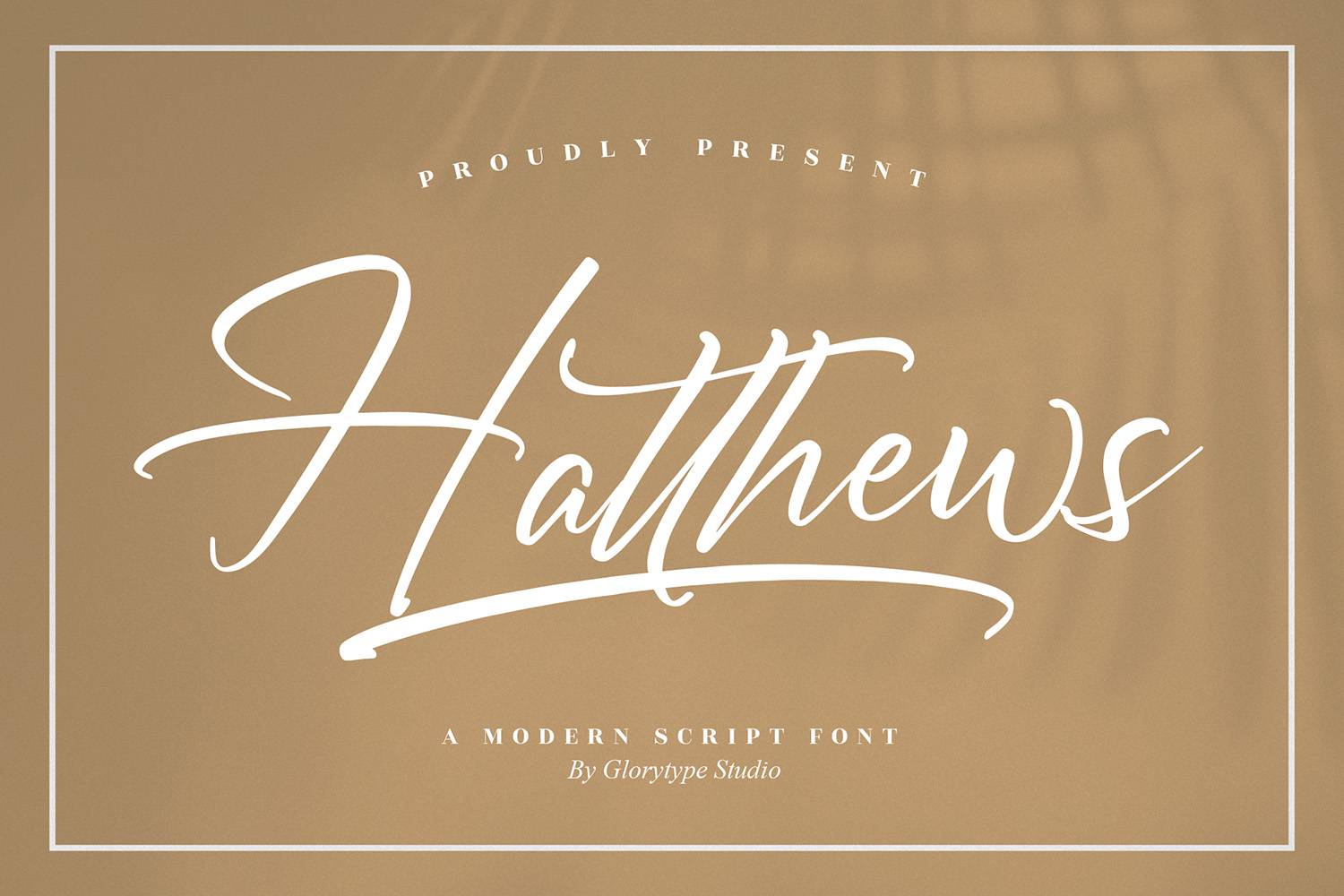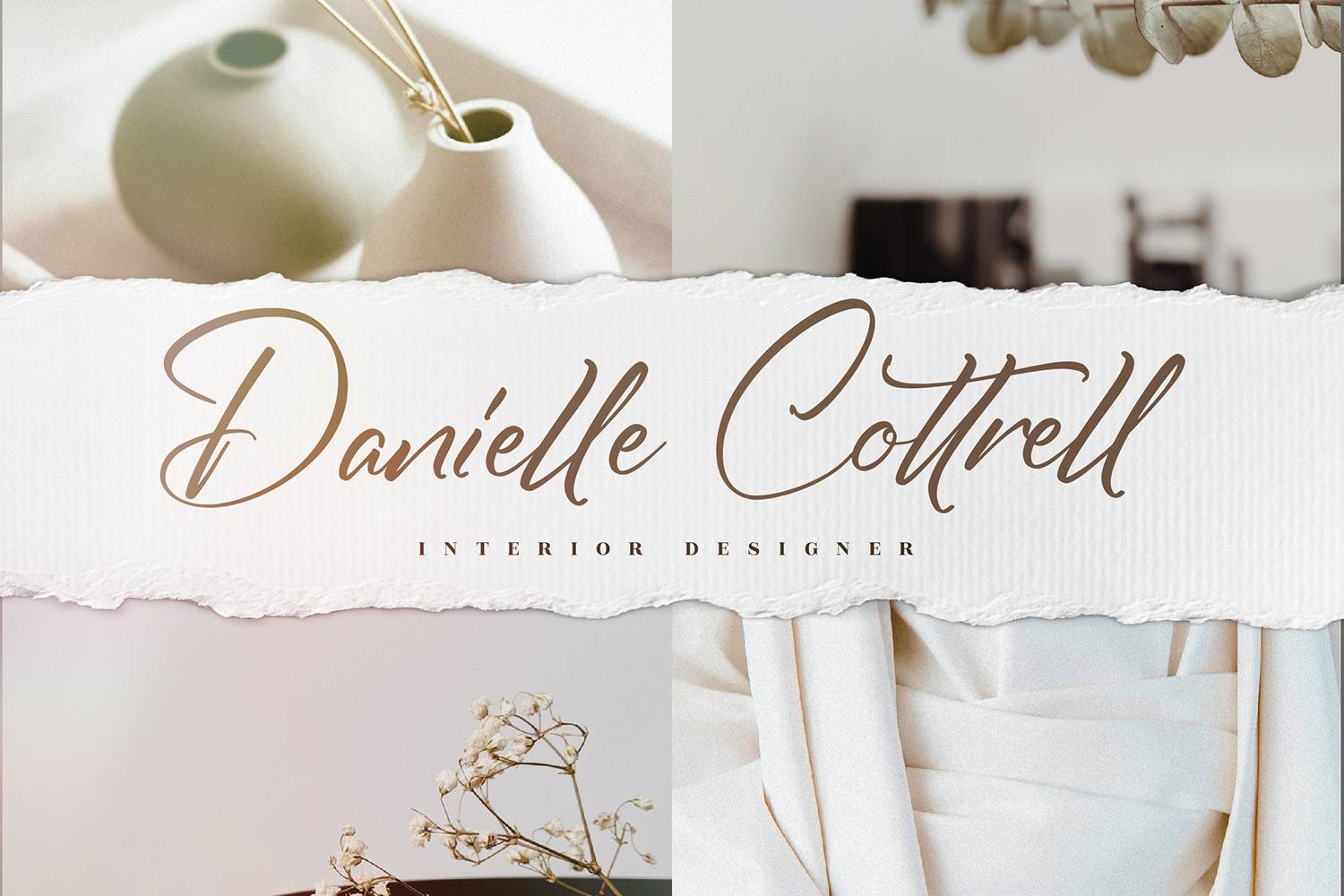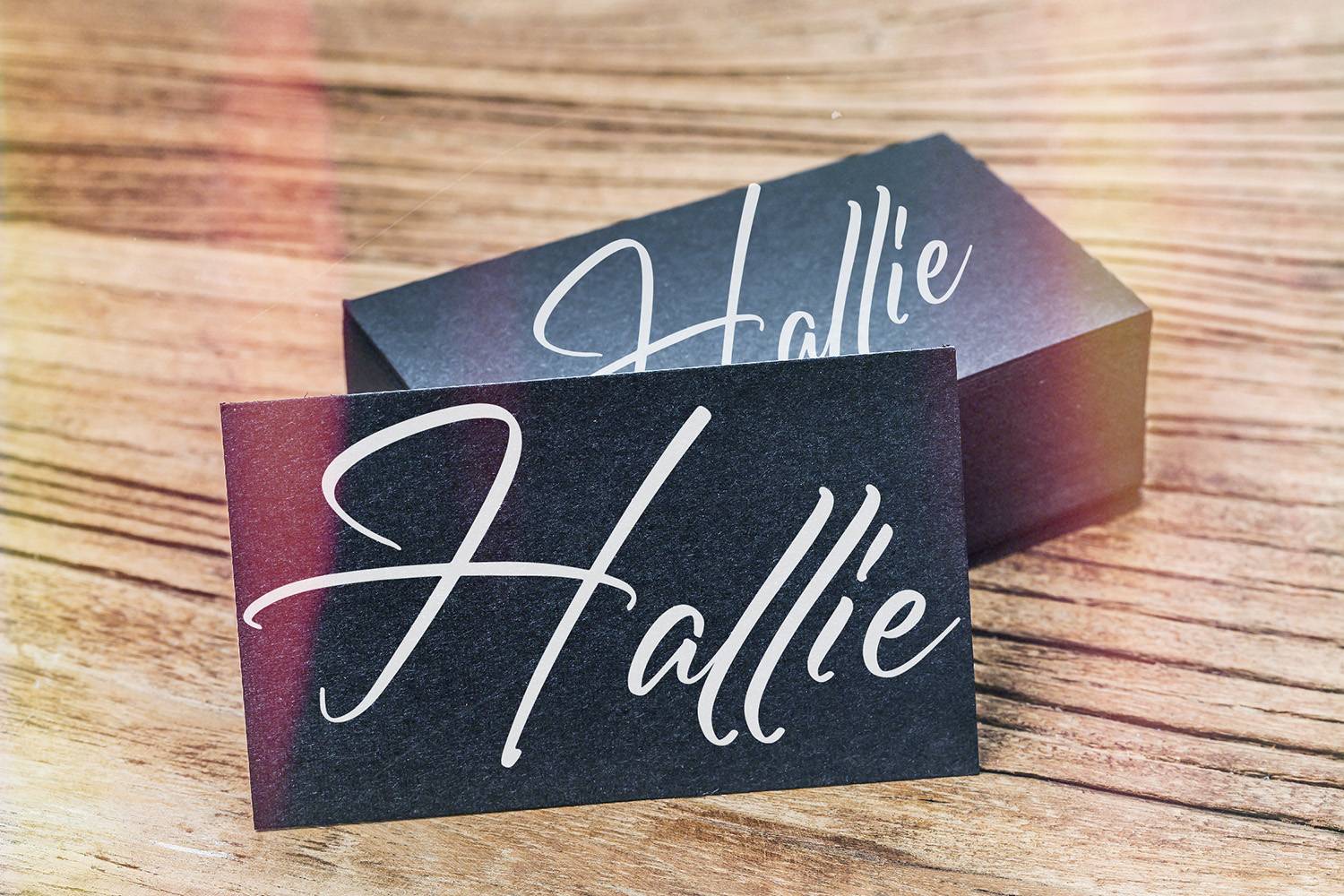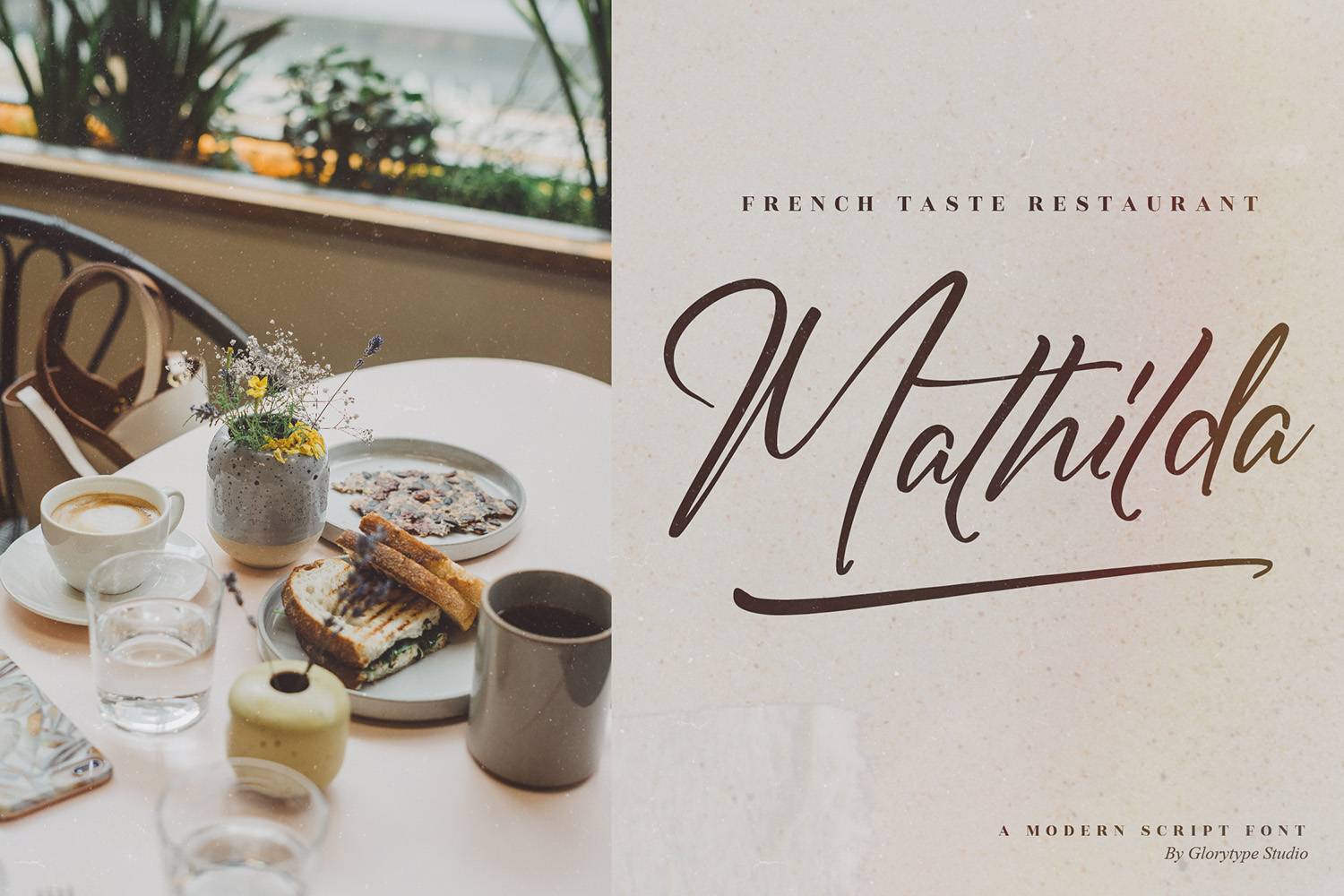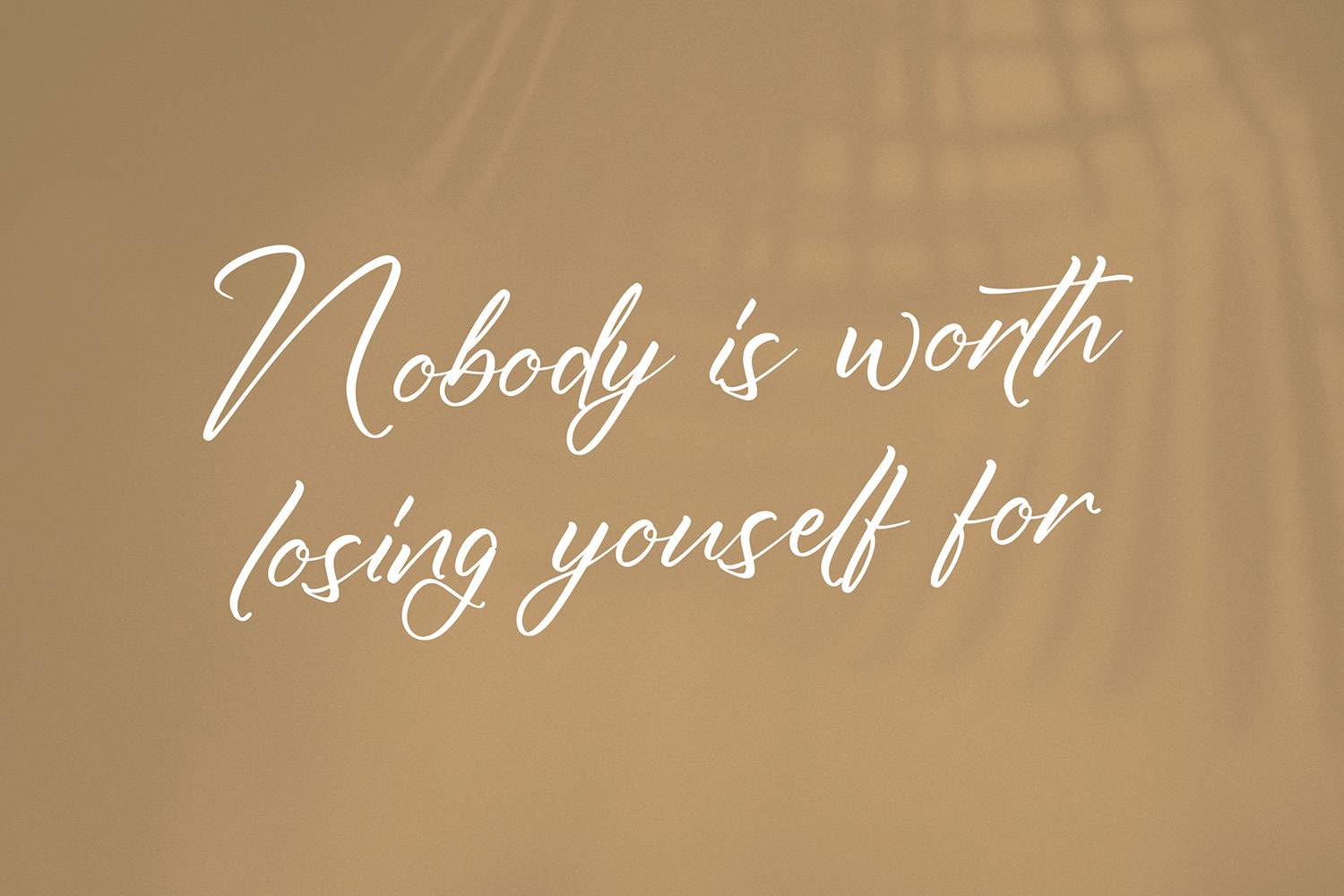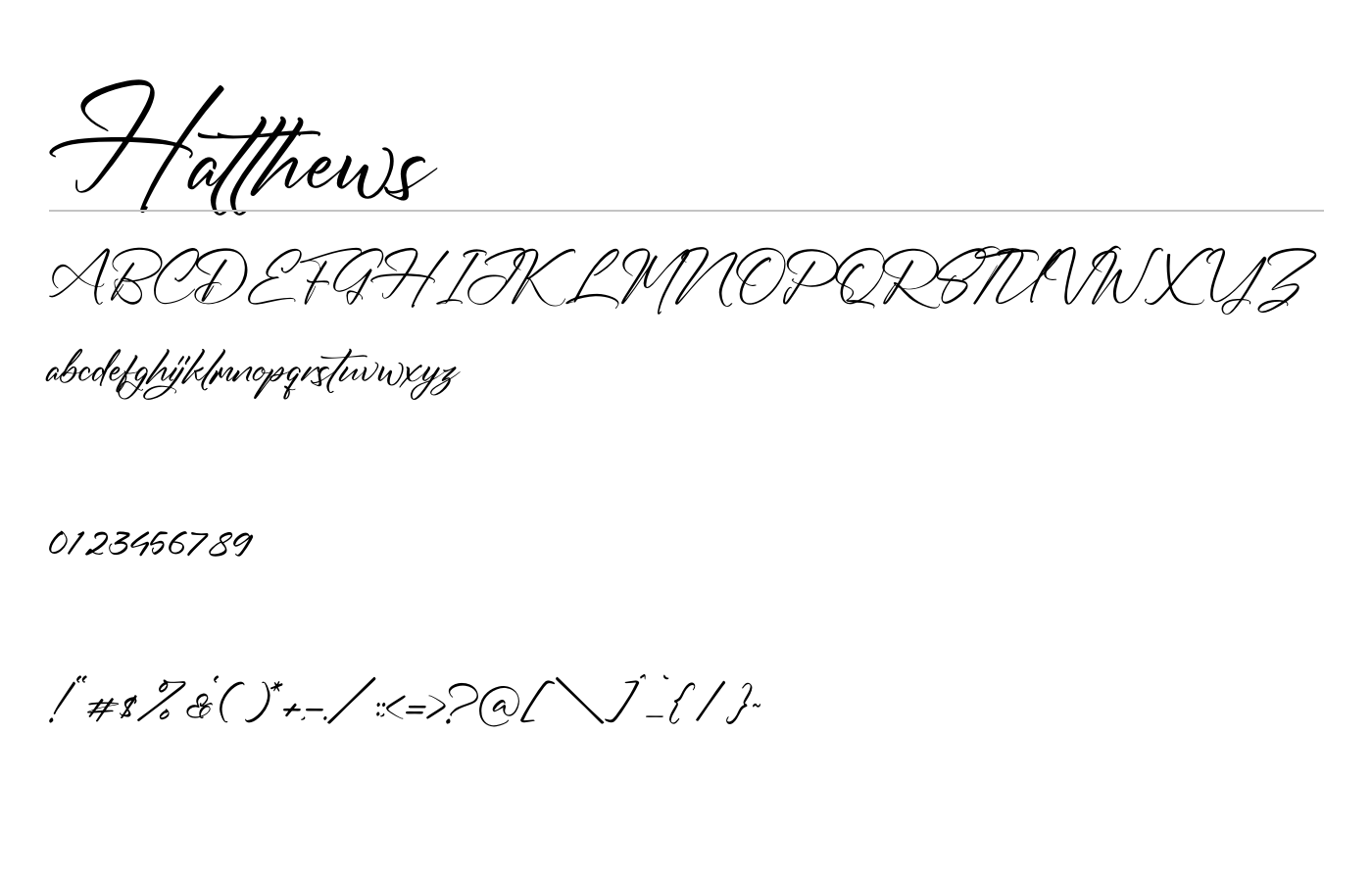
Hatthews is an elegant, handwritten script font that features smooth, flowing strokes with a delicate, refined feel. Its slender, slightly condensed letterforms combined with subtle flourishes make it perfect for sophisticated branding, invitations, and stylish headlines that require a personal and graceful touch. This font works beautifully in projects that seek a chic, modern, yet timeless aesthetic.
Hatthews Font
About Hatthews Font